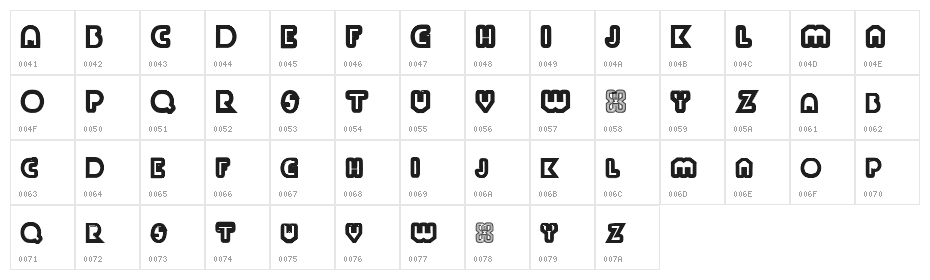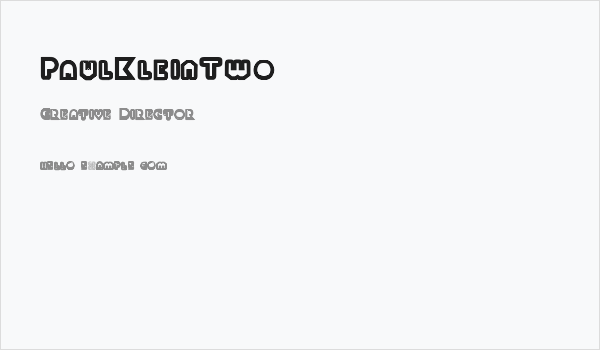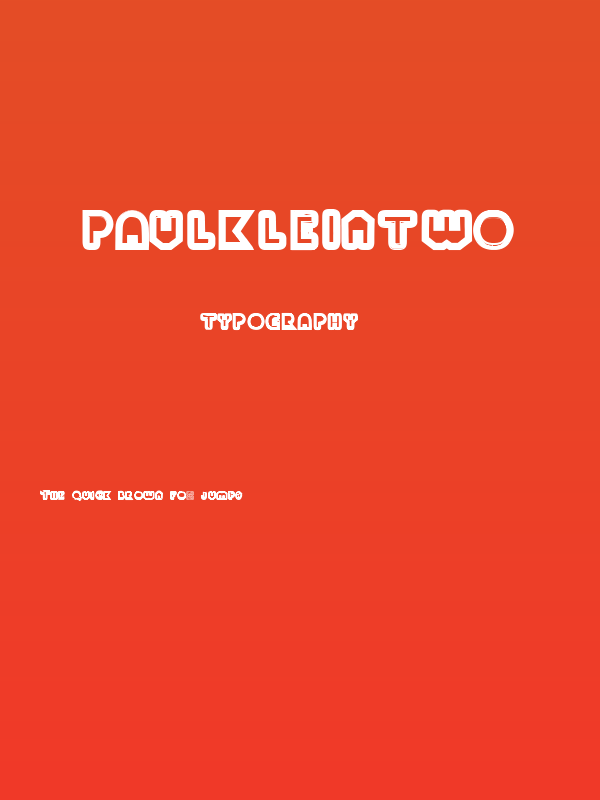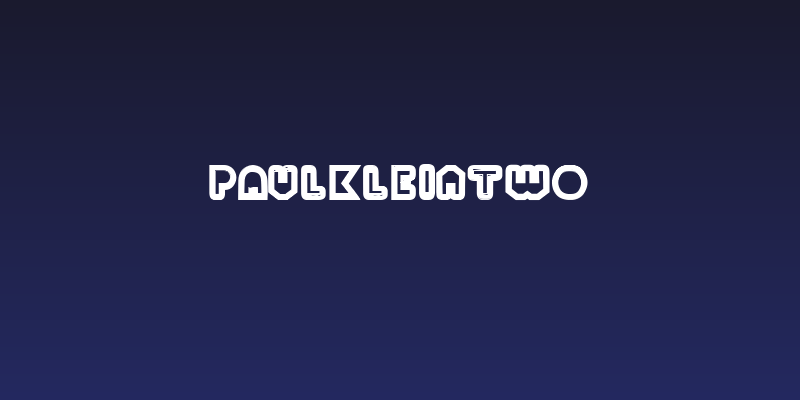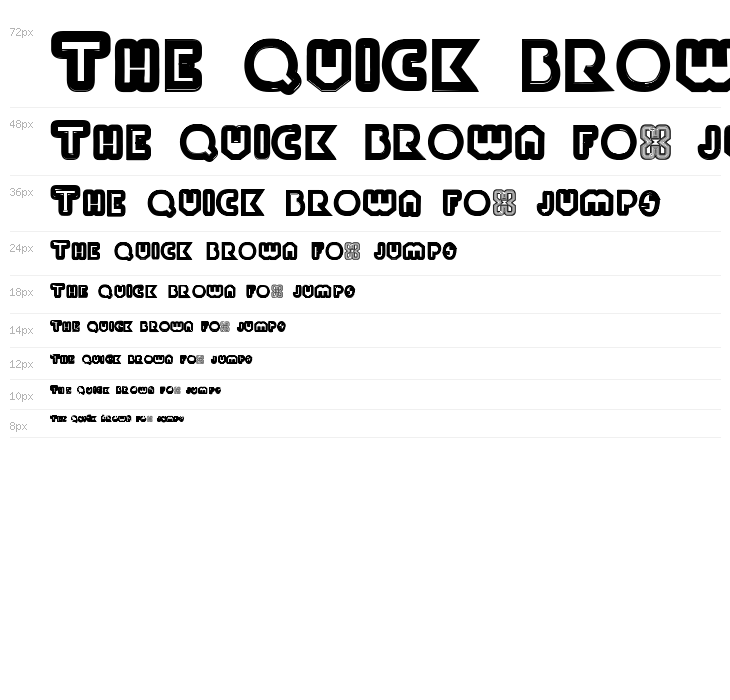
PaulKleinTwo Font
PaulKleinTwo Description
This font features a bold, geometric design with a strong emphasis on angular shapes and thick outlines. Each character is crafted with a unique style, incorporating elements such as cutouts and layered effects that add depth and dimension. The uppercase letters are particularly striking, with some characters featuring intricate internal patterns or stylized elements that make them stand out. The overall appearance is modern and eye-catching, making it suitable for projects that require a distinctive and memorable typeface. The font's boldness and geometric nature suggest a confident and assertive tone, ideal for making a strong visual impact.
| Proposed Projects | Ideal for branding, posters, headlines, and any design project that requires a bold and modern typeface. |